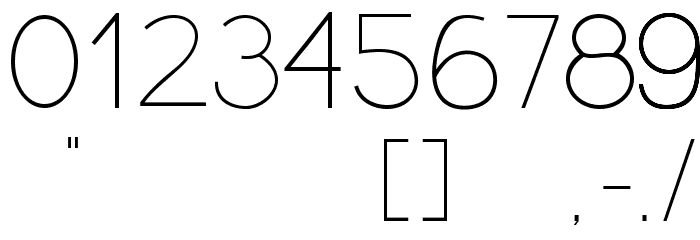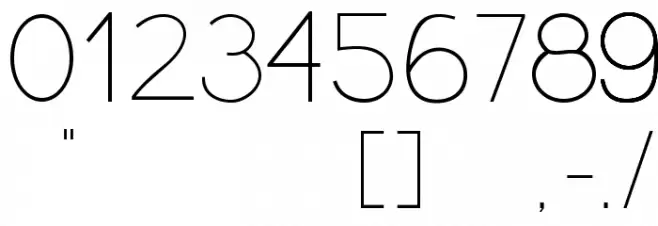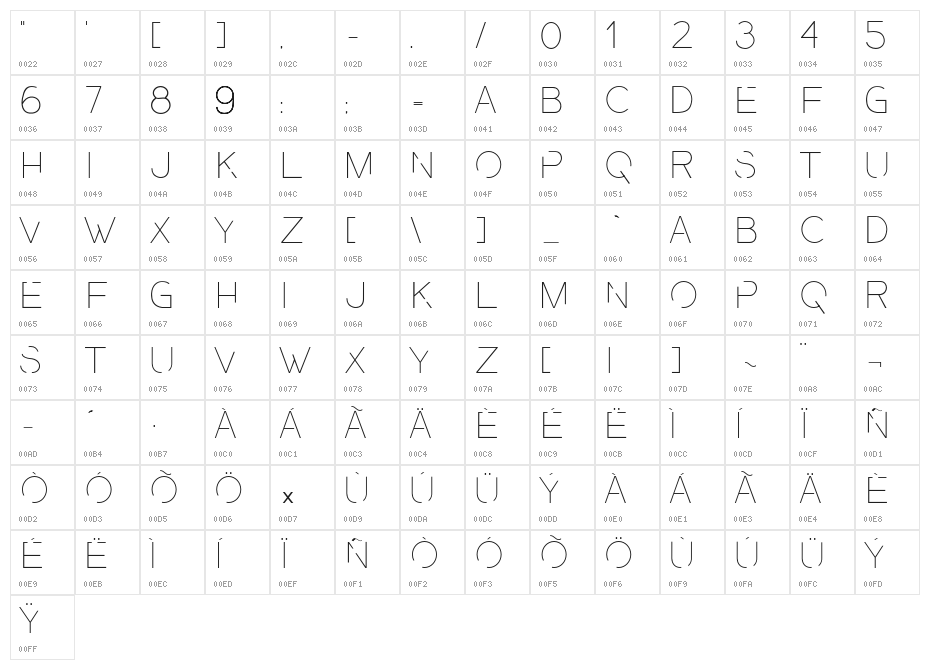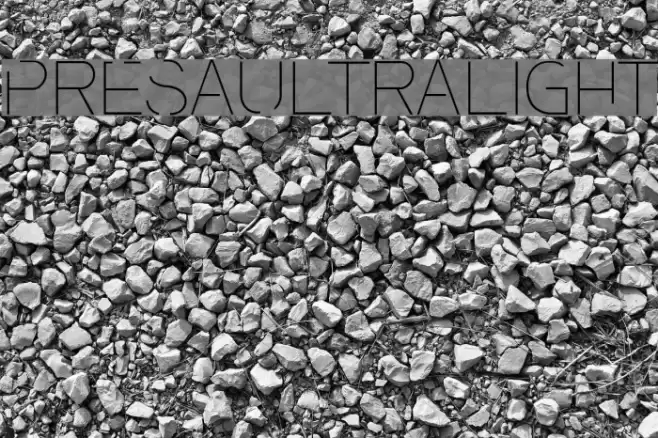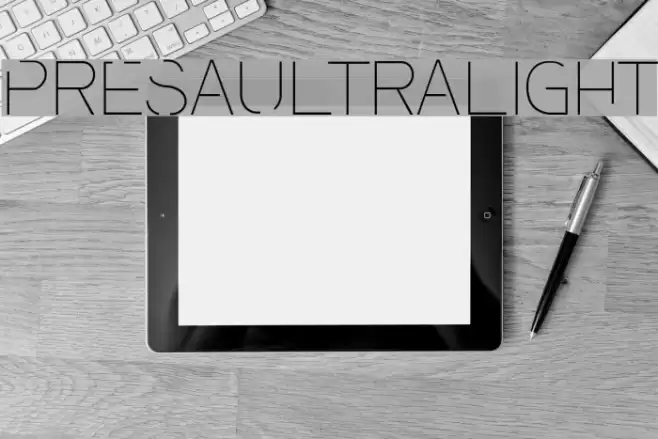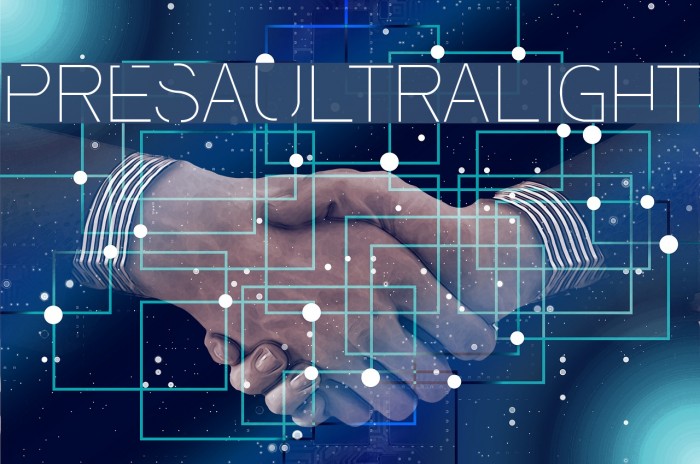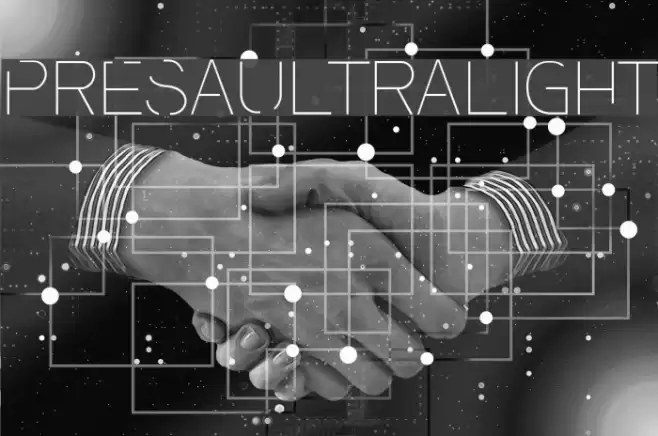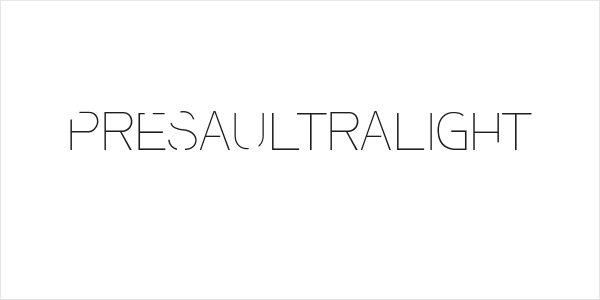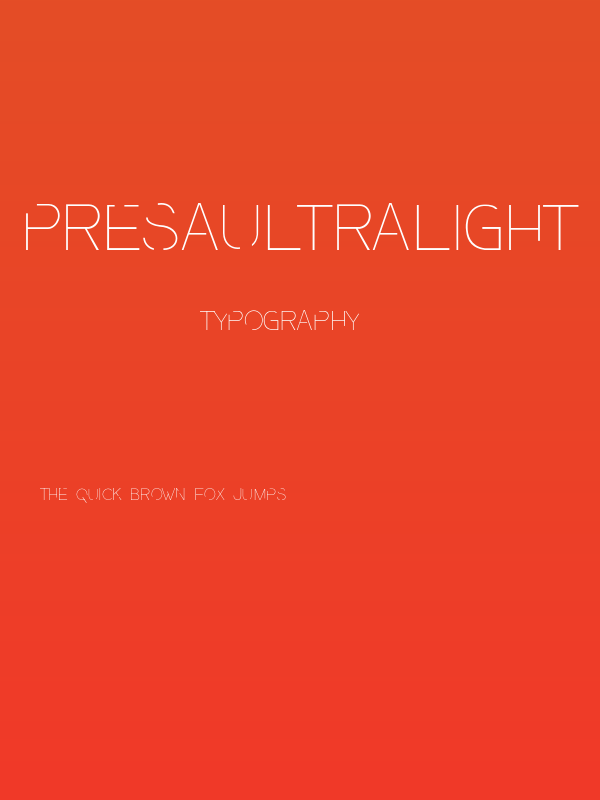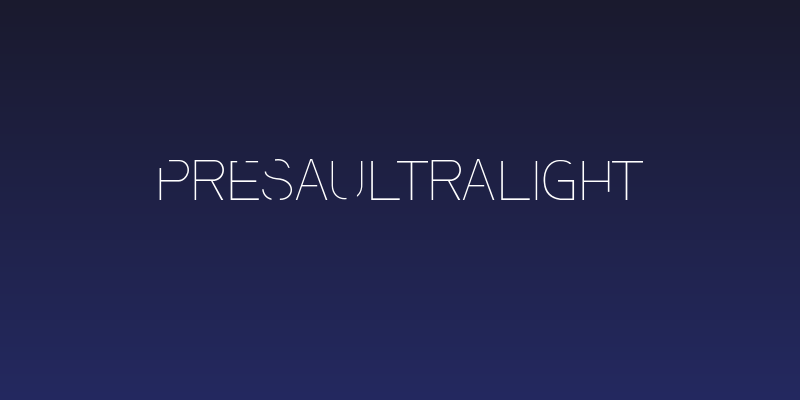
PresaUltralight Font
PresaUltralight Description
This font features a sleek, ultra-lightweight design with a modern and minimalist aesthetic. The characters are clean and geometric, with a consistent stroke width that gives it a refined and sophisticated appearance. The uppercase letters are particularly striking, with sharp angles and a sense of precision. The numerals and special characters maintain the same elegant style, making it versatile for various design applications. The overall look is airy and open, providing excellent readability while maintaining a stylish edge.
| Proposed Projects | Ideal for modern branding, minimalist posters, sleek packaging designs, and contemporary web design. |